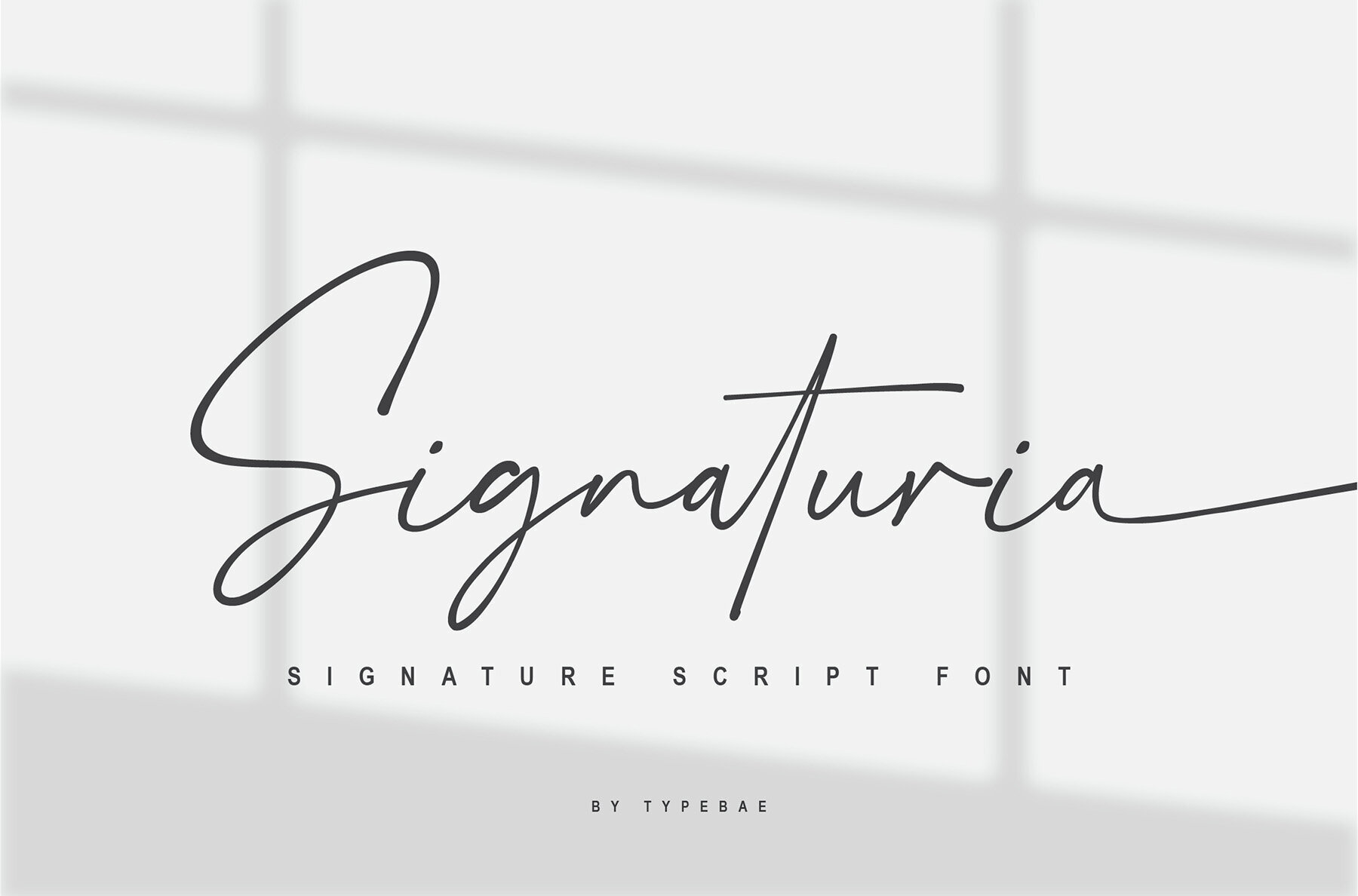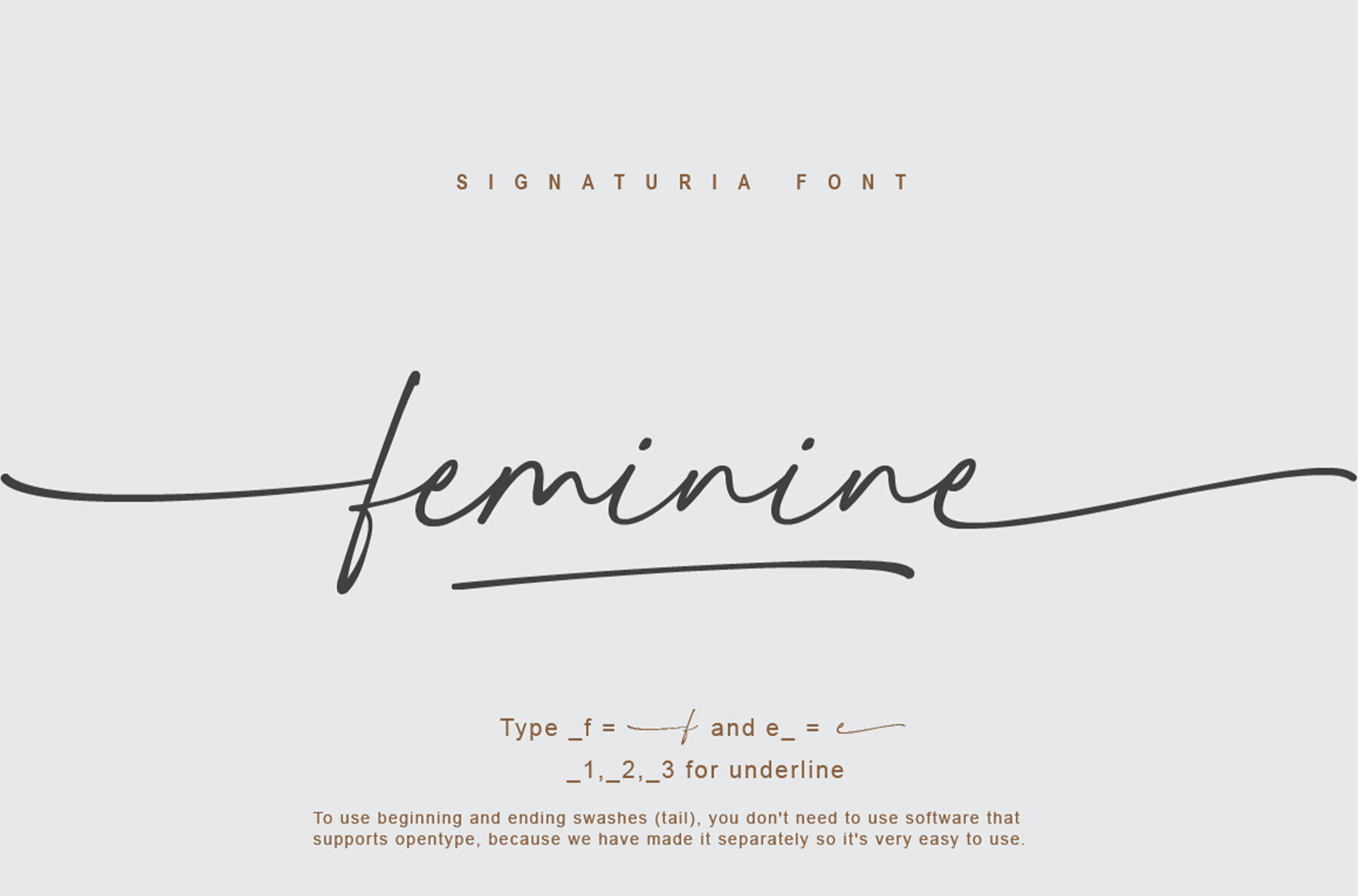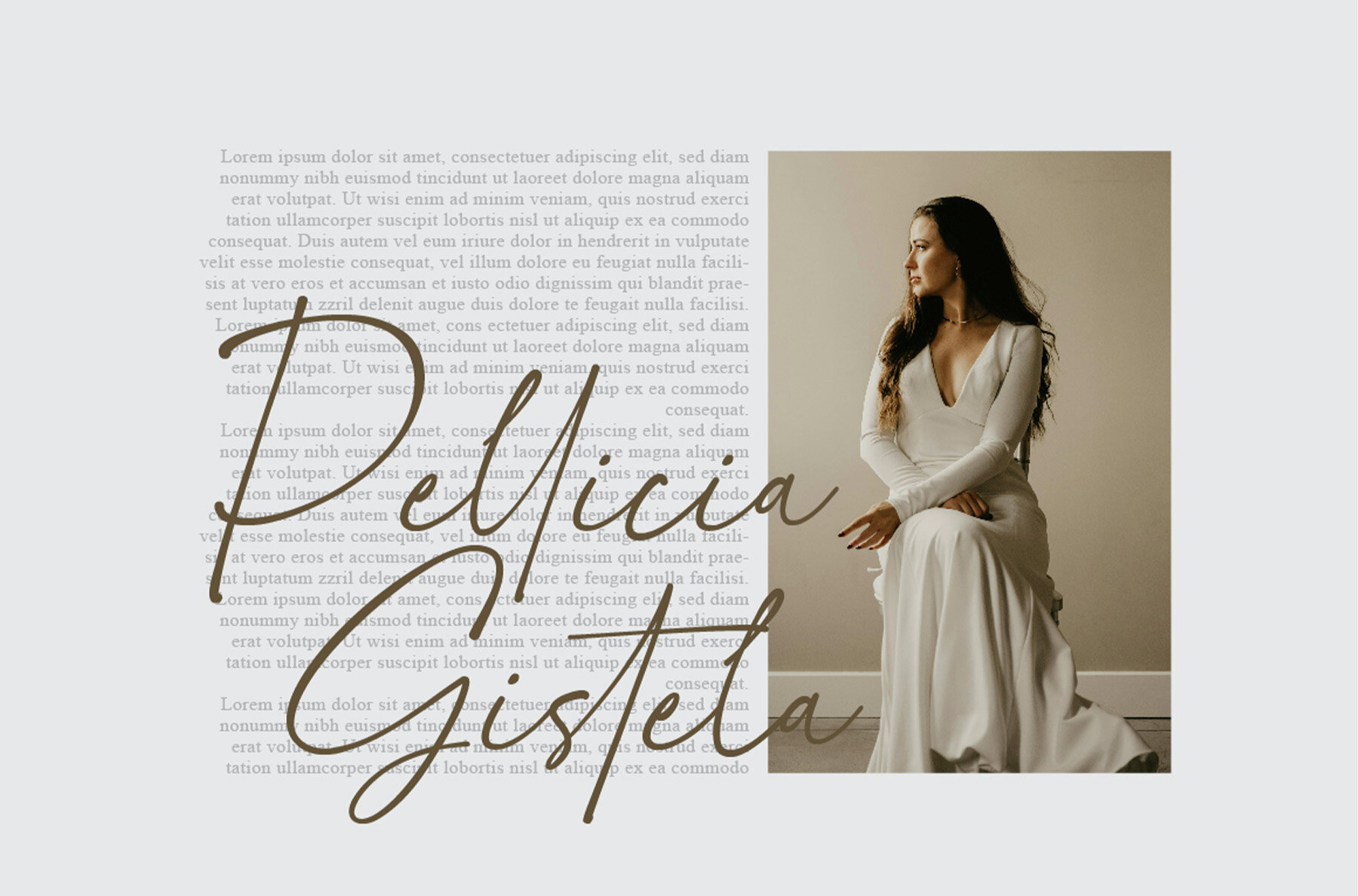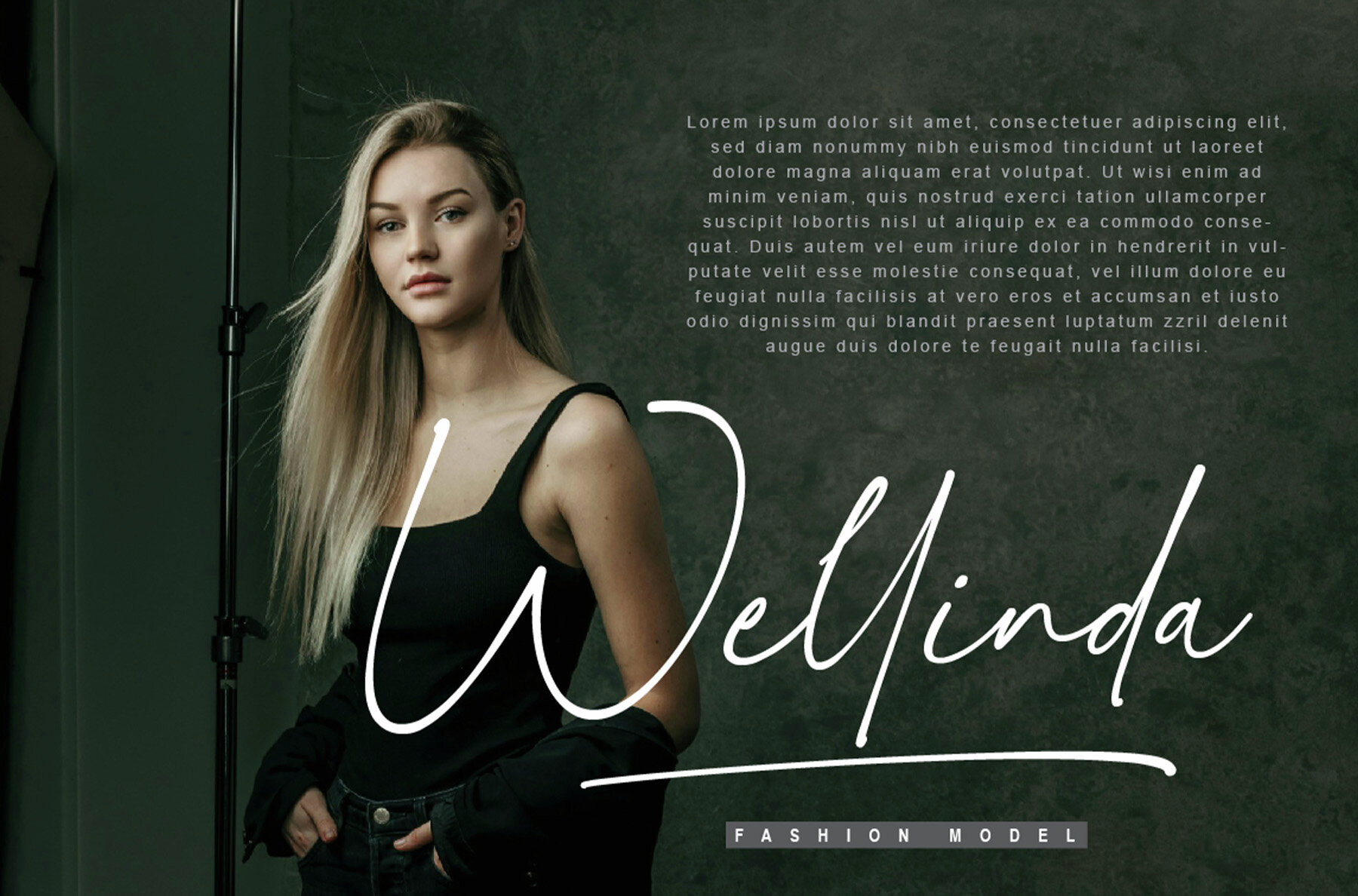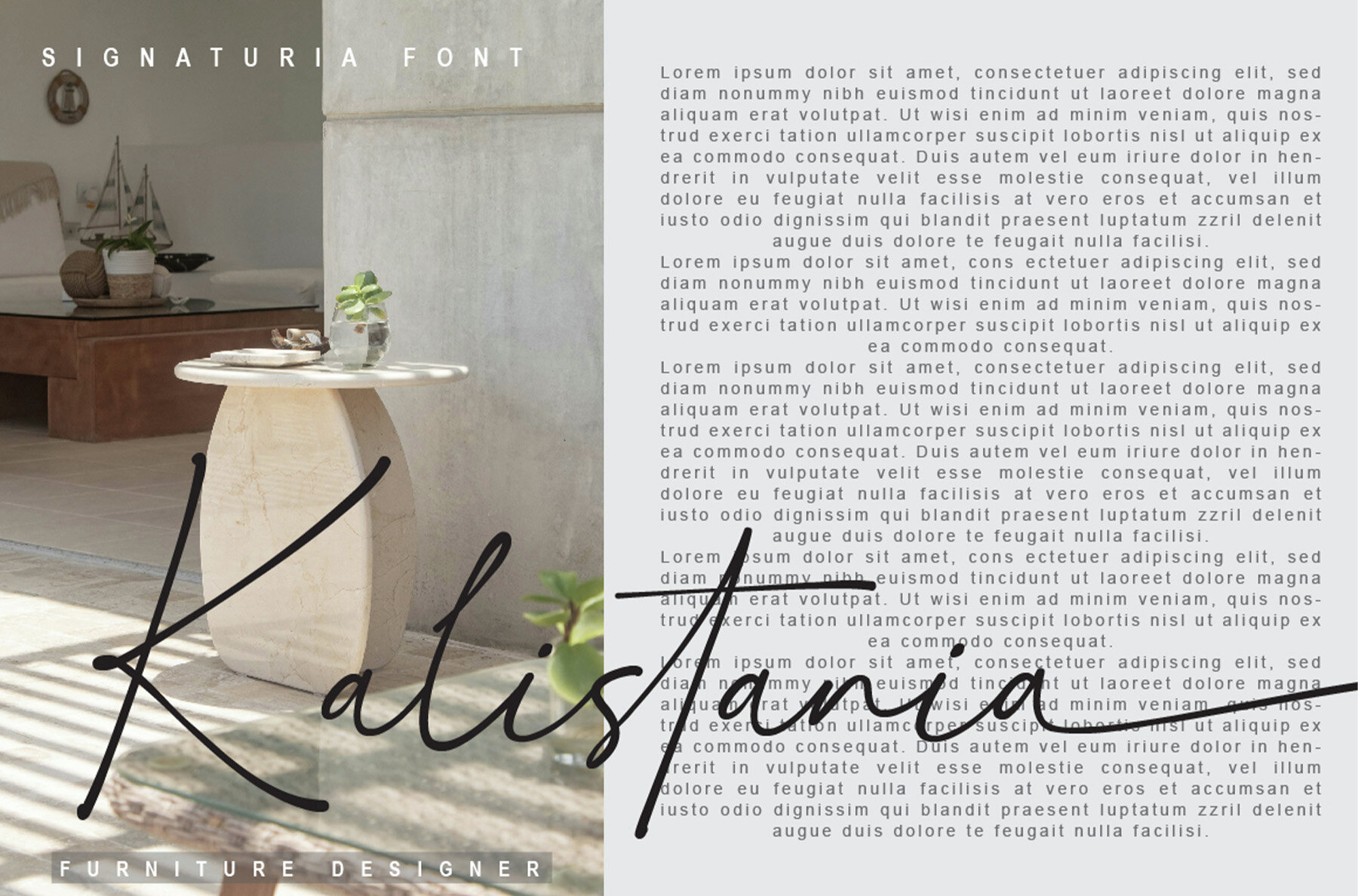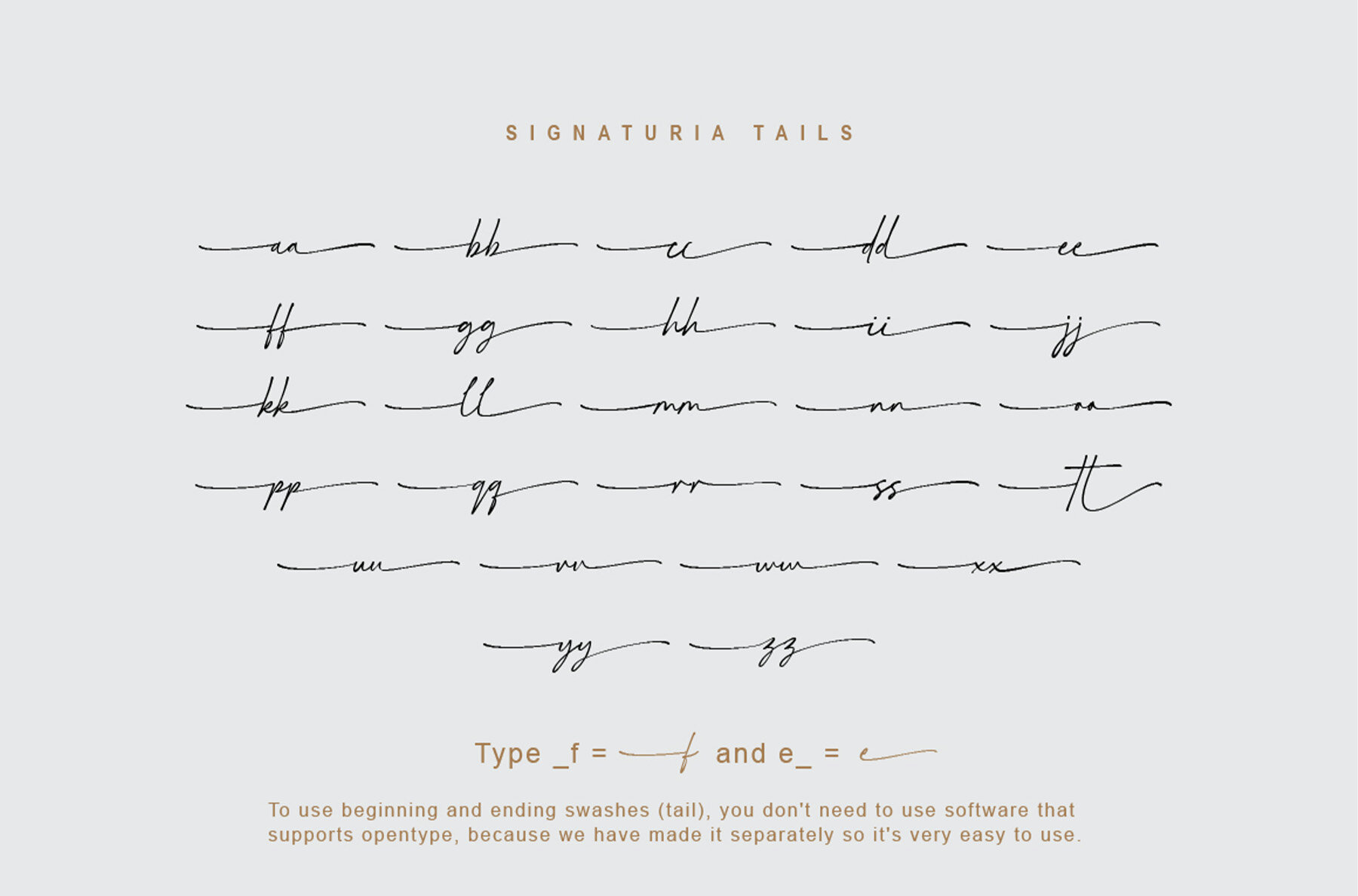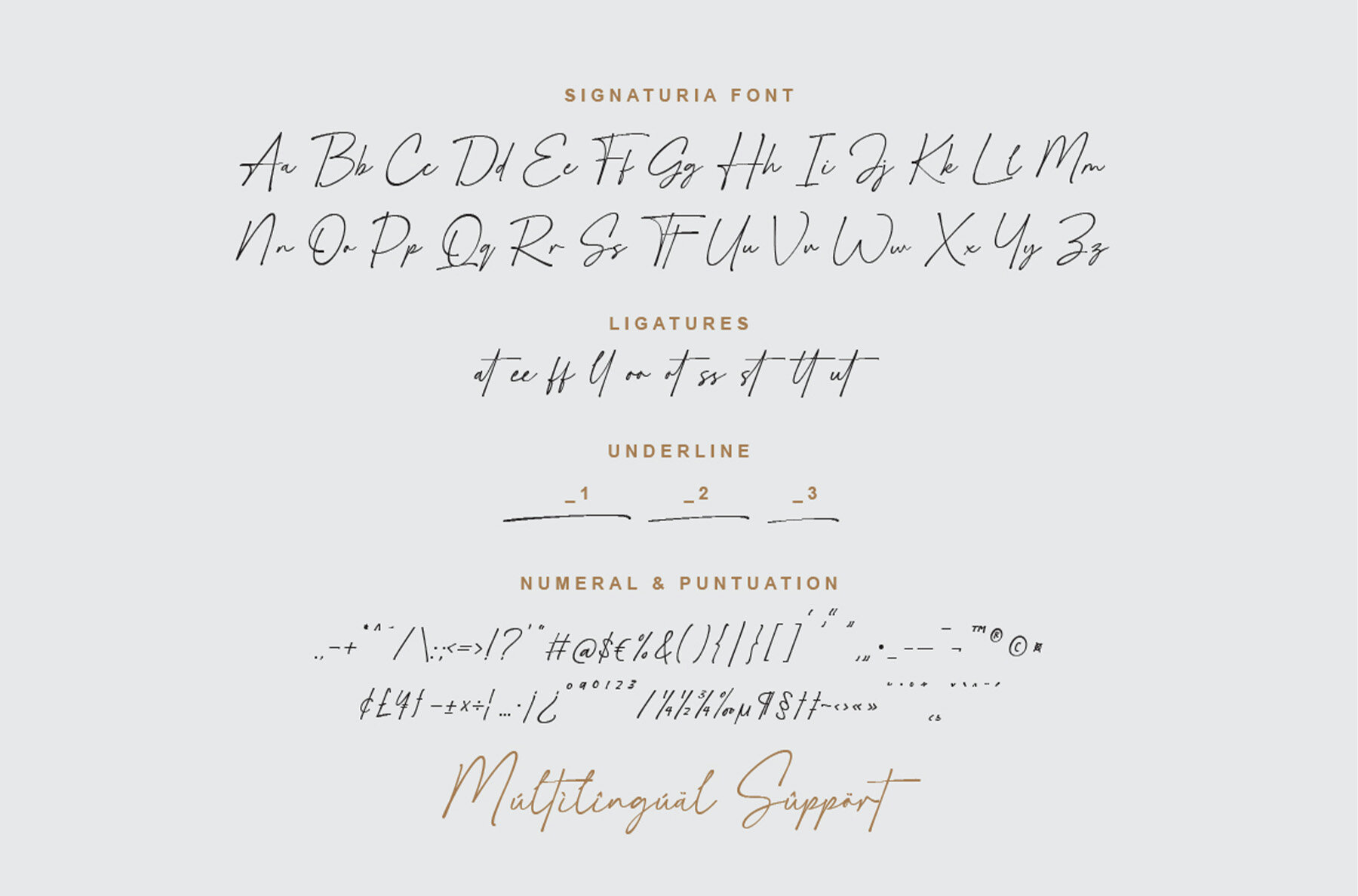
Signaturia Font
Signaturia offers a natural and sophisticated flow, with elegant tails gracefully starting and finishing each letter. This typographic design creates a seamless connection between specific letter pairings, enhancing its authentic handwritten quality. It is ideal for projects that demand a personal touch, providing a natural handwriting appeal without the need for complex design software. Thanks to its independent swash components, Signaturia is user-friendly and accessible, even for those who do not utilize advanced typographic applications. This ease of use makes it a versatile choice for designers.Signaturia: Elegant Signature Font